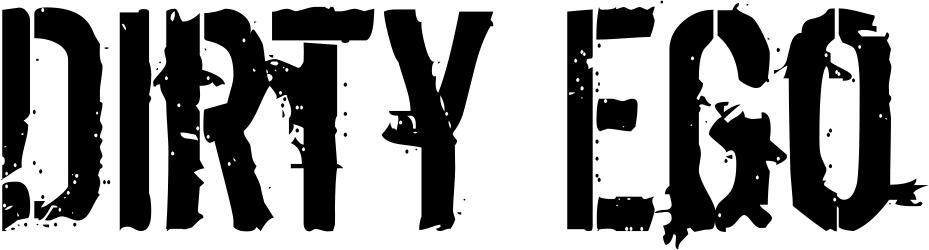
Dirty Ego Font
If you dig a dirty and edgy look, today’s distressed stencil font is the perfect thing for you! Dirty Ego has bold and faded characters and a stencil look to give off a powerful vibe to your readers. You can use it for war movies, books, plays, and event flyers and banners, gaming titles, and informal headlines. This destroyed font only has capitals.